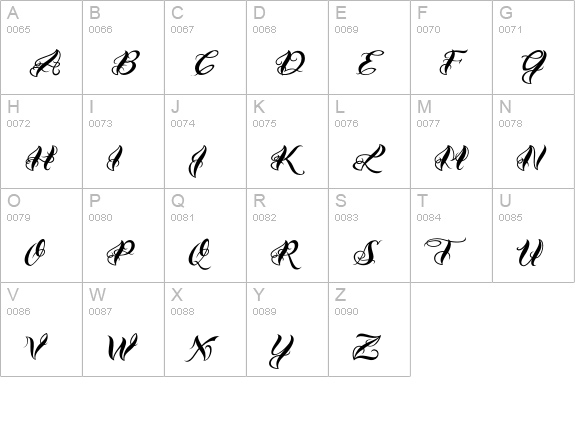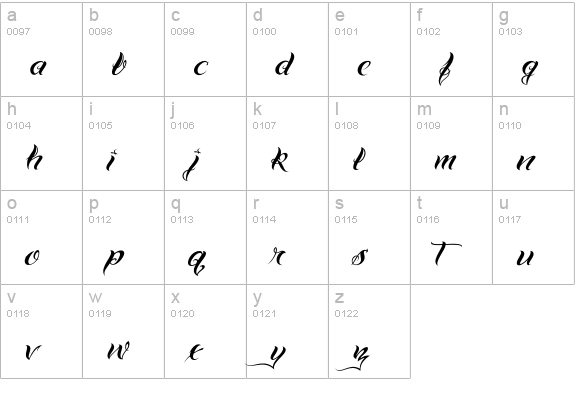
Introducing VTC-BadTattooHandOne, a bold and rebellious font that will make a statement in any design project. This font embodies the spirit of edginess and creativity, perfect for those who dare to be different. With its rough and imperfect brush strokes, it exudes a raw and unapologetic energy, making it ideal for tattoo-inspired designs, album covers, posters, and more. VTC-BadTattooHandOne is not only visually striking but also incredibly versatile. Whether you're aiming for a grunge aesthetic or simply want to add a touch of uniqueness to your work, this font has got you covered. Its irregular letterforms and subtle distressing give it an authentic and organic feel, as if each character was handcrafted with care. What sets VTC-BadTattooHandOne apart is that it is completely free to download at FontsMarket.com. Yes, you read that right – this exceptional font can be yours without spending a dime. Now you can unleash your creativity without any limitations, experimenting with typography in endless ways. So go ahead and grab your copy of VTC-BadTattooHandOne today. Let its boldness and individuality elevate your designs to new heights. With its freely available download, you have the opportunity to make a lasting impression without breaking the bank. Don't miss out on this exciting and unique typeface – get your hands on VTC-BadTattooHandOne now and let your creativity run wild.